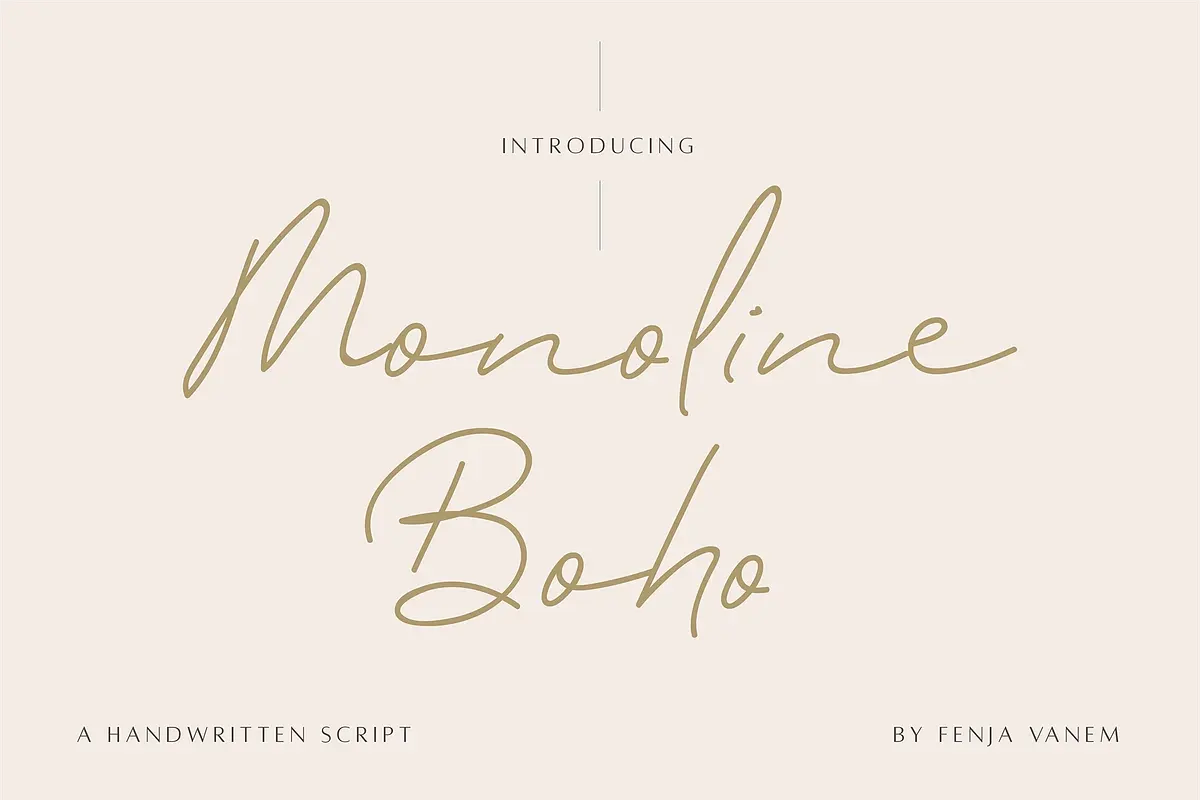
Monoline Boho | A Handwritten Script Free Download
Monoline Boho | A Handwritten Script Free Download is a minimal and elegant typeface that brings a relaxed, free-spirited feel to your design work. Please note: you must purchase this font for commercial use, but you can test it through a free download. With its single-line weight, smooth flow, and bohemian charm, Monoline Boho is perfect for logos, Instagram posts, wedding stationery, packaging, and lifestyle branding.
This font captures effortless beauty—making it ideal for creatives who want to express authenticity and simplicity. Whether you’re designing a handmade product label or a soulful quote graphic, Monoline Boho | A Handwritten Script Free Download delivers a stylish, airy aesthetic that’s both trendy and timeless. Fully compatible with Adobe Illustrator, Photoshop, Canva, and more, it’s ready to flow into your next design. Download it today for personal use and give your typography that signature boho touch.